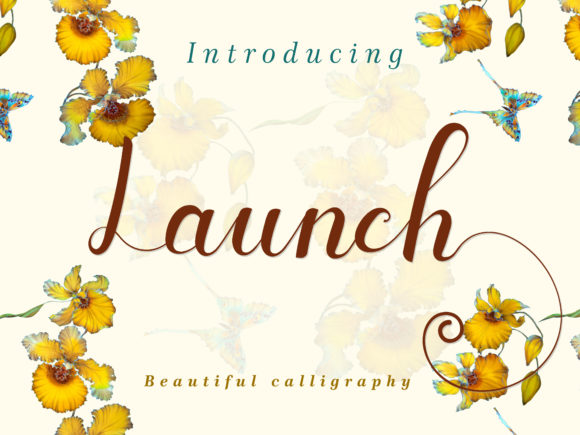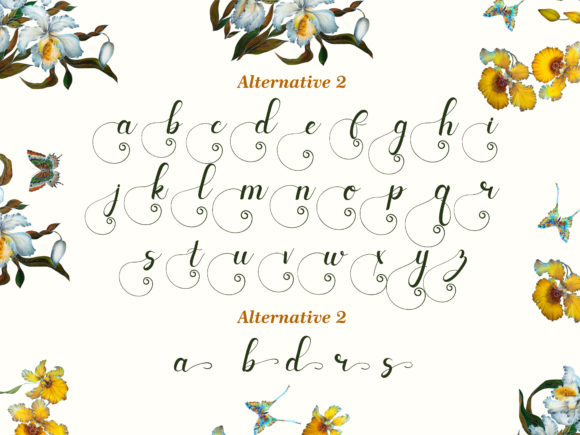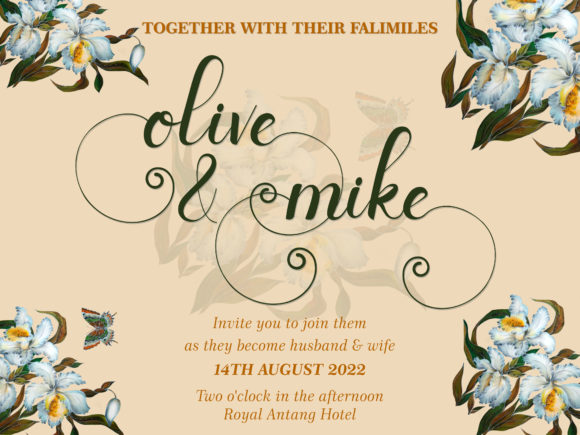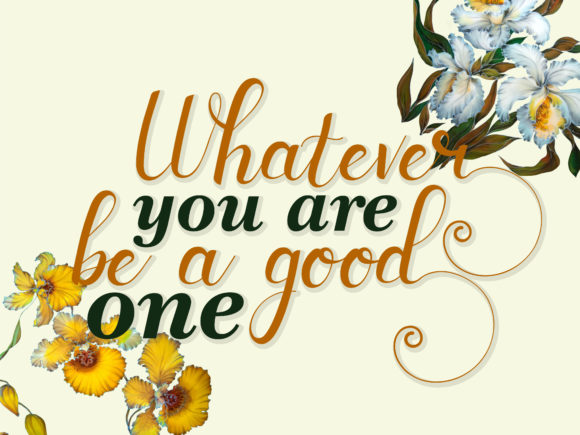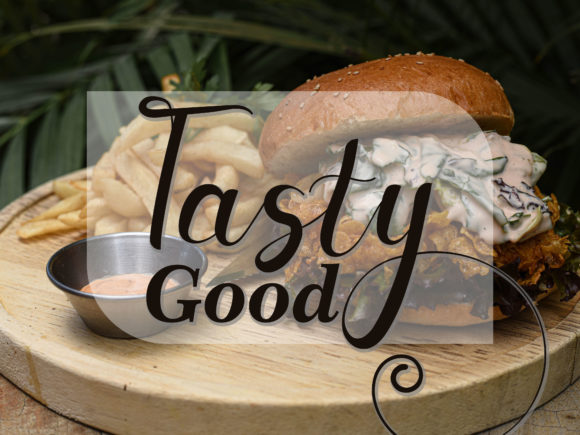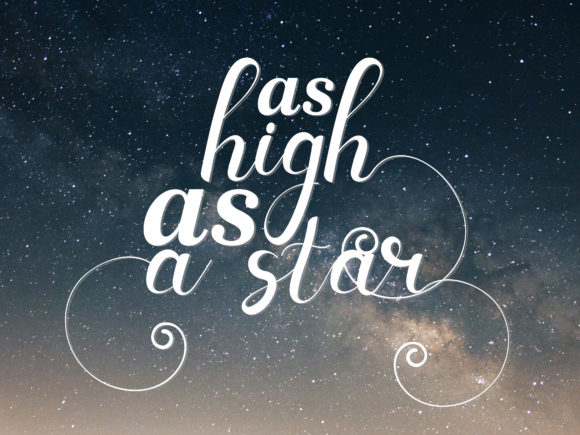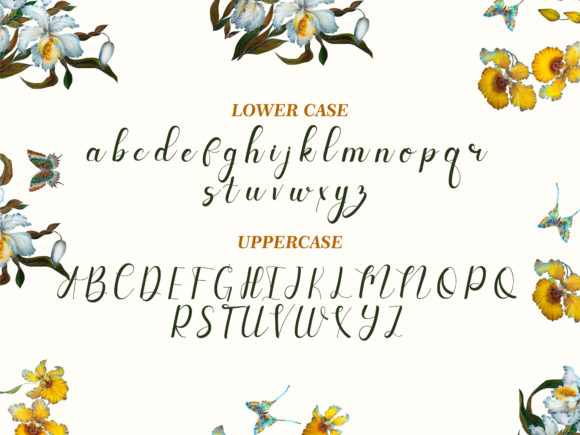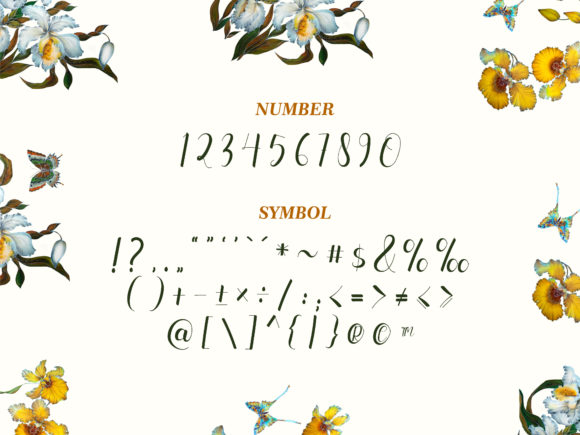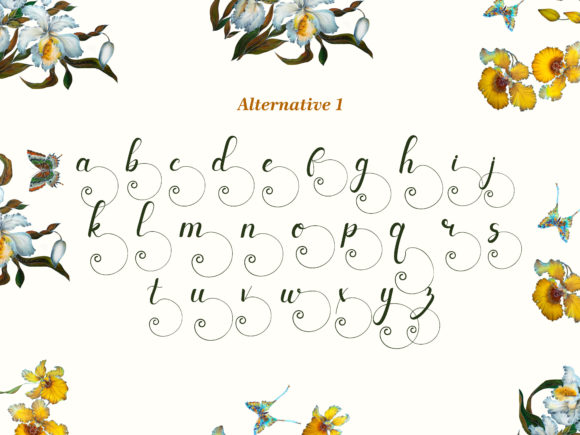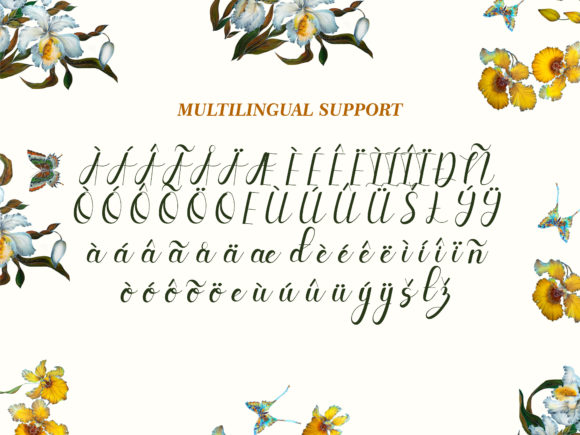
Launch Font
About Launch Font
Launch is more than just a font—it’s a gateway to adding elegance and modernity to your creative endeavors. Its sleek and sophisticated handwritten style immediately captures attention and adds a sense of refinement to any project it graces.
Picture using Launch to craft stunning wedding invitations that set the tone for a truly memorable event. The font’s polished strokes and contemporary flair lend a touch of modern romance, making your invitations both visually striking and emotionally resonant.
For birthday cards and thank you notes, Launch brings a personalized touch that goes beyond words. Its unique character and clean lines convey thoughtfulness and appreciation, making your messages even more heartfelt and meaningful to recipients.
In the realm of apparel designs, Launch adds a chic and stylish element. Whether it’s printed on clothing, accessories, or even merchandise, the font’s sleek appearance elevates your brand’s image and appeals to a modern and fashion-forward audience.
With its PUA encoding, Launch offers you the freedom to explore a multitude of glyphs and swashes, giving you the ability to customize and fine-tune your designs to perfection. This level of control ensures that your creations truly reflect your vision and style.
Social media posts, quotes, and digital designs also benefit from the contemporary charm of Launch. Its elegance and modernity make your content stand out in a crowded digital landscape, garnering attention and engagement from your audience.
As you embrace Launch for your creative projects, you’ll discover its ability to seamlessly blend sophistication and modern appeal. The font’s versatility makes it an asset across various design applications, and its PUA encoding empowers you to experiment and create with ease. Whether it’s invitations, cards, apparel, or digital content, Launch will help your projects take off with style and grace.